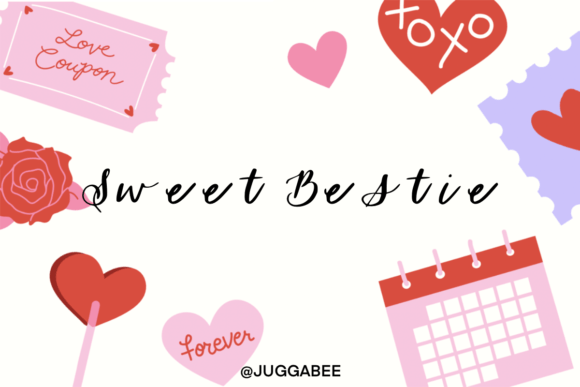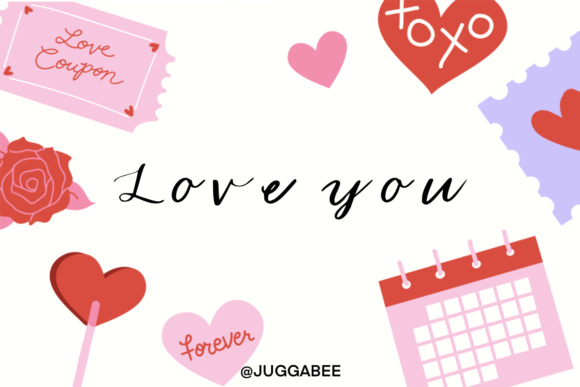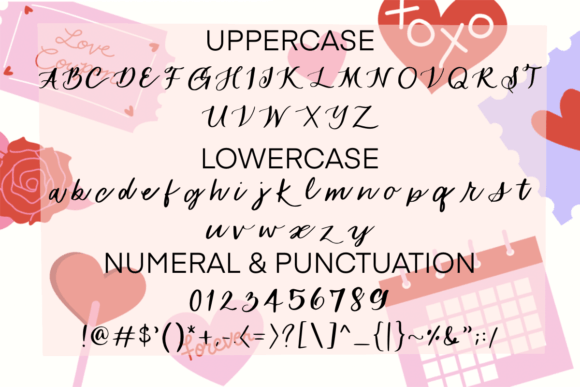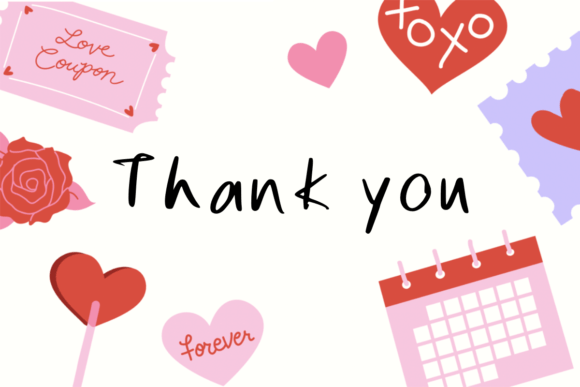
Sweet Bestie
About Sweet Bestie
Sweet Bestie is a cute handwritten typeface that is great for adding a personal touch to your designs. This font can be used for logos, branding, invitations, stationery, wedding designs, social media posts, and much more!